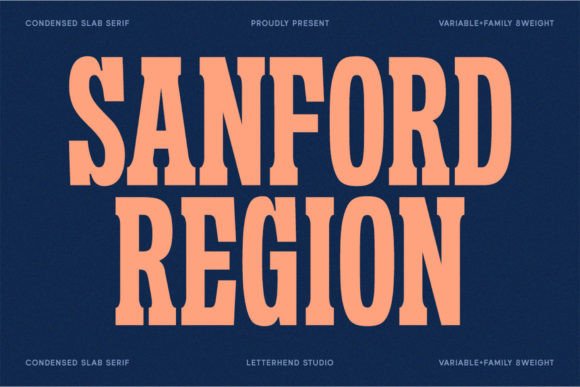
Welcome to the world of Sanford Region Font – the ultimate choice for those seeking the Best Font for Title. If you're looking for a font that exudes confidence, boldness, and a strong presence, then look no further than Sanford Region.
Crafted with meticulous attention to detail by the talented designers at Letterhend, Sanford Region is a condensed slab serif typeface that boasts a strong look and feel. Its unique style and elegant design make it the perfect choice for creating eye-catching logos, headlines, signage, and other various formal forms such as invitations, labels, magazines, books, greeting/wedding cards, packaging, fashion, make-up, stationery, novels, labels, or any advertising purpose.
Sanford Region is not just any font – it's a game-changer. It's the kind of font that captures the essence of your message and elevates it to a whole new level. Its captivating design and versatility make it an ideal choice for a wide range of applications. Whether you're looking to create a stunning logo for your brand, design an eye-catching invitation for your wedding, or craft a captivating headline for your magazine, Sanford Region has got you covered.
With Sanford Region, you can express your creativity without limits. This font is not just a tool, it's a masterpiece that can bring your vision to life. Its timeless design and flexibility ensure that it will remain relevant and in-demand for years to come.